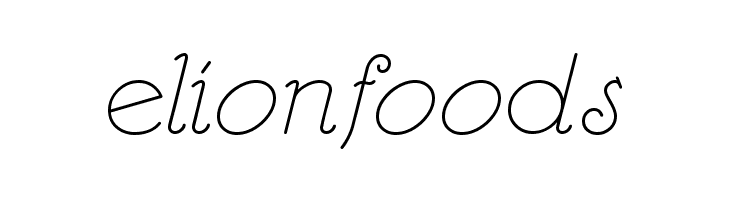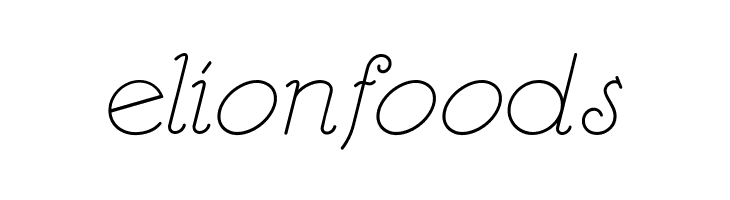
• ResavskaBGSans
A modern, clean sans-serif font with excellent readability and versatility.
• ResavskaBGSans-Italic
A modern, italic sans-serif font with a sleek and dynamic style.
• Research Remix
• Retro Rock Poster
A bold, distressed font with a vintage rock poster vibe.
• Revert BRK
A bold, geometric font with a modern, industrial feel.
• Revert Round BRK
A bold, rounded font with a retro and playful style.
• Rhumba Script NF
An elegant script font with flowing curves and decorative swashes.
• RhumbaScriptNF
An elegant script font with flowing, cursive style and intricate loops.
• RhymeChronicle1494
• Rialto NF
A bold, high-contrast font with geometric and decorative elements.